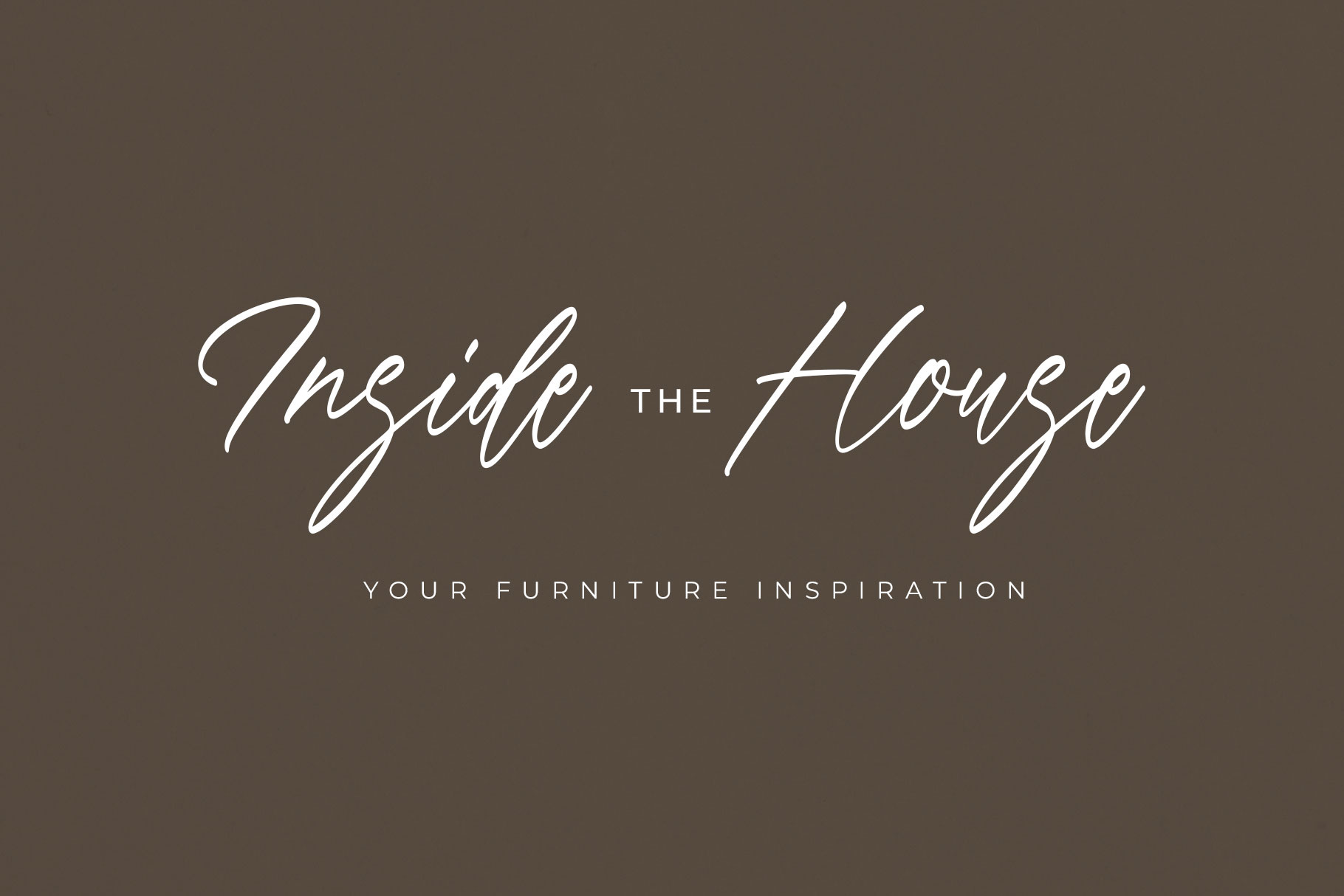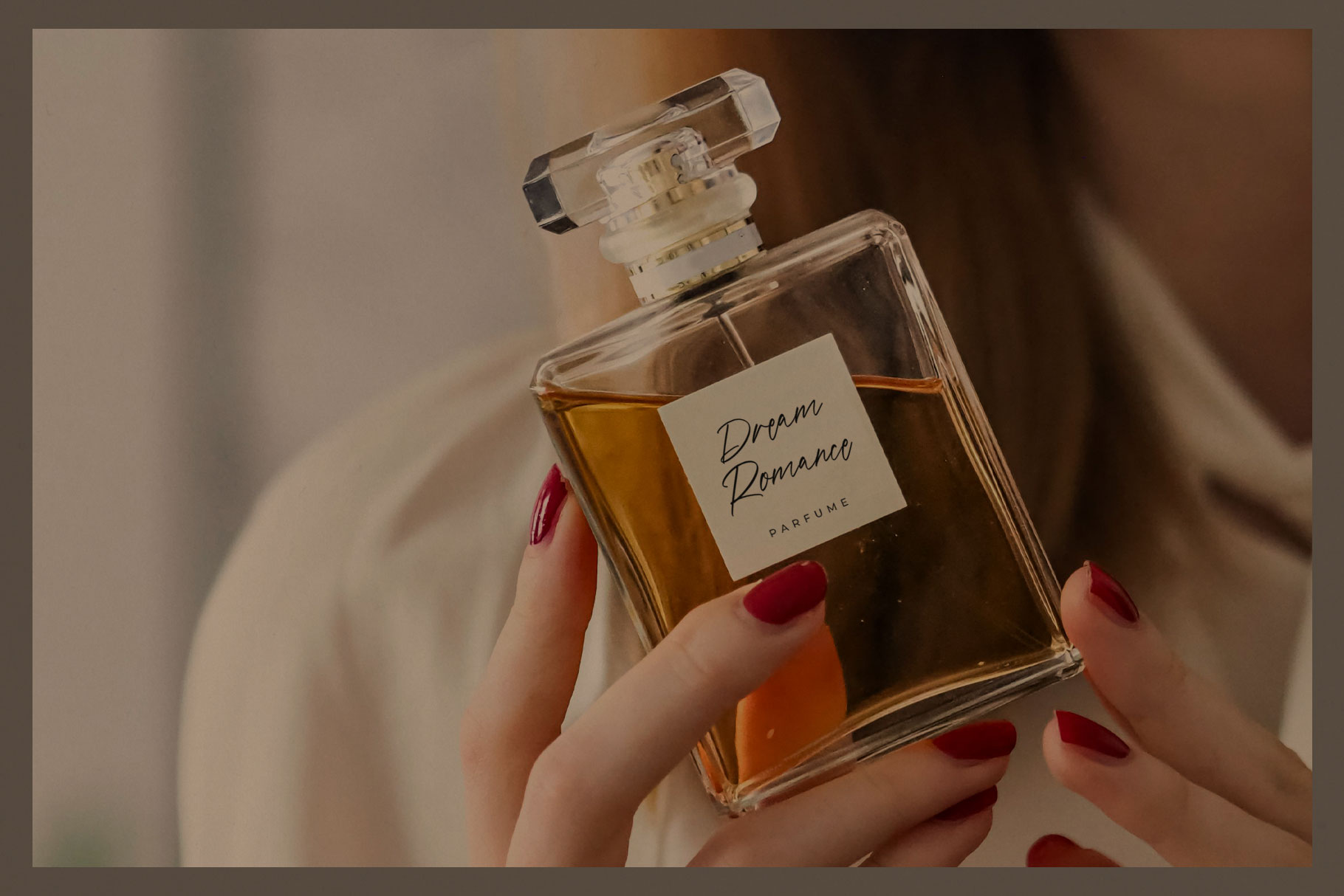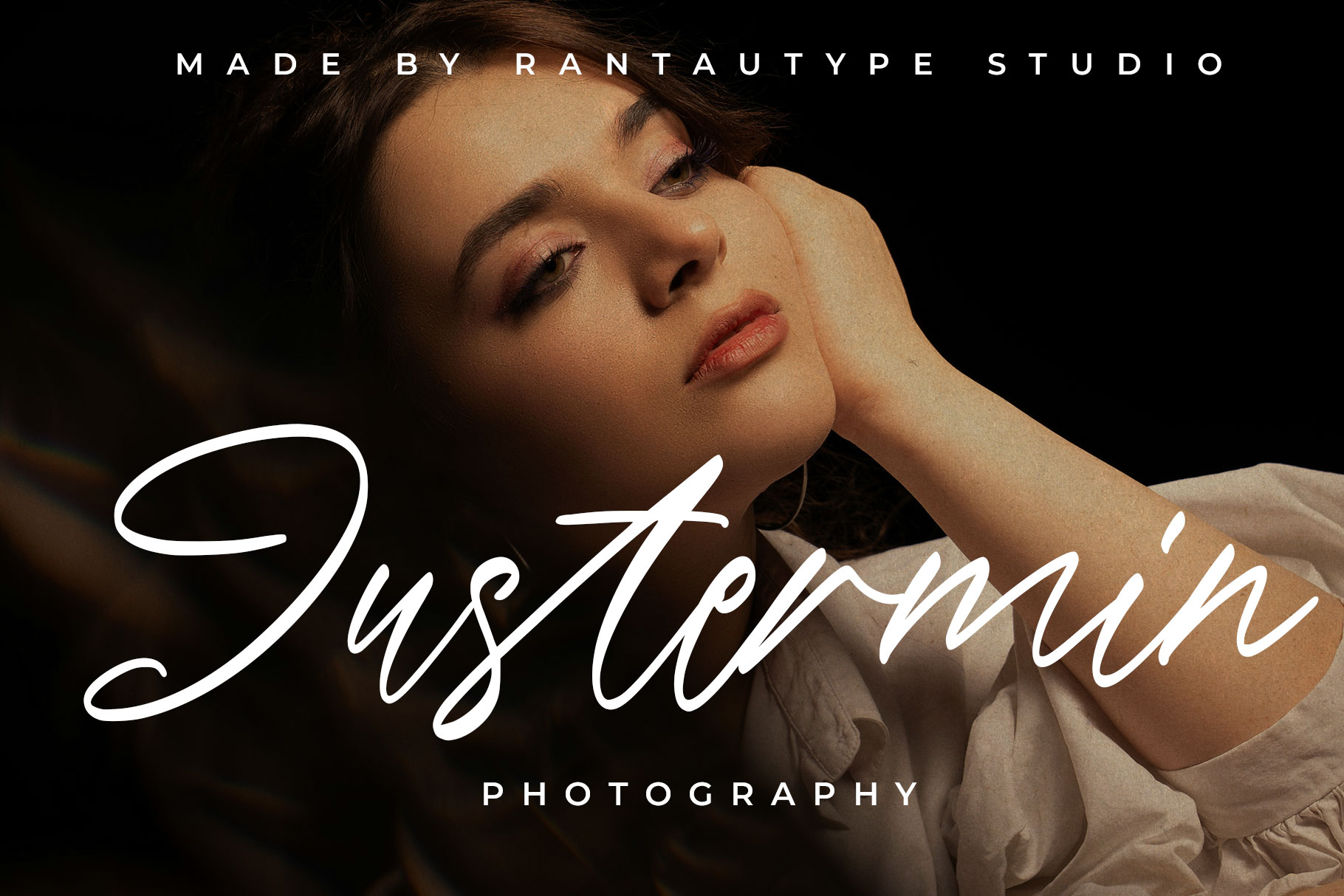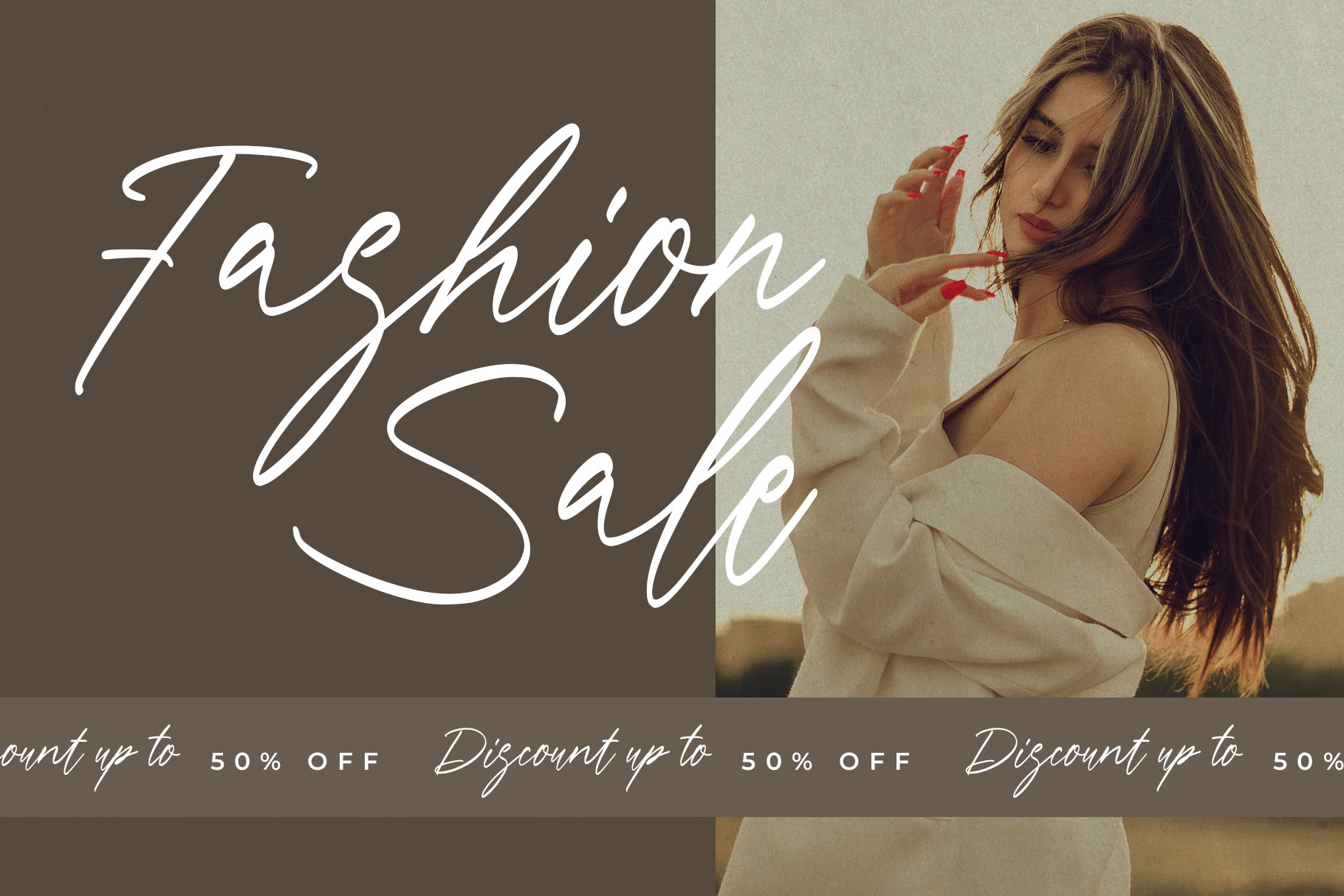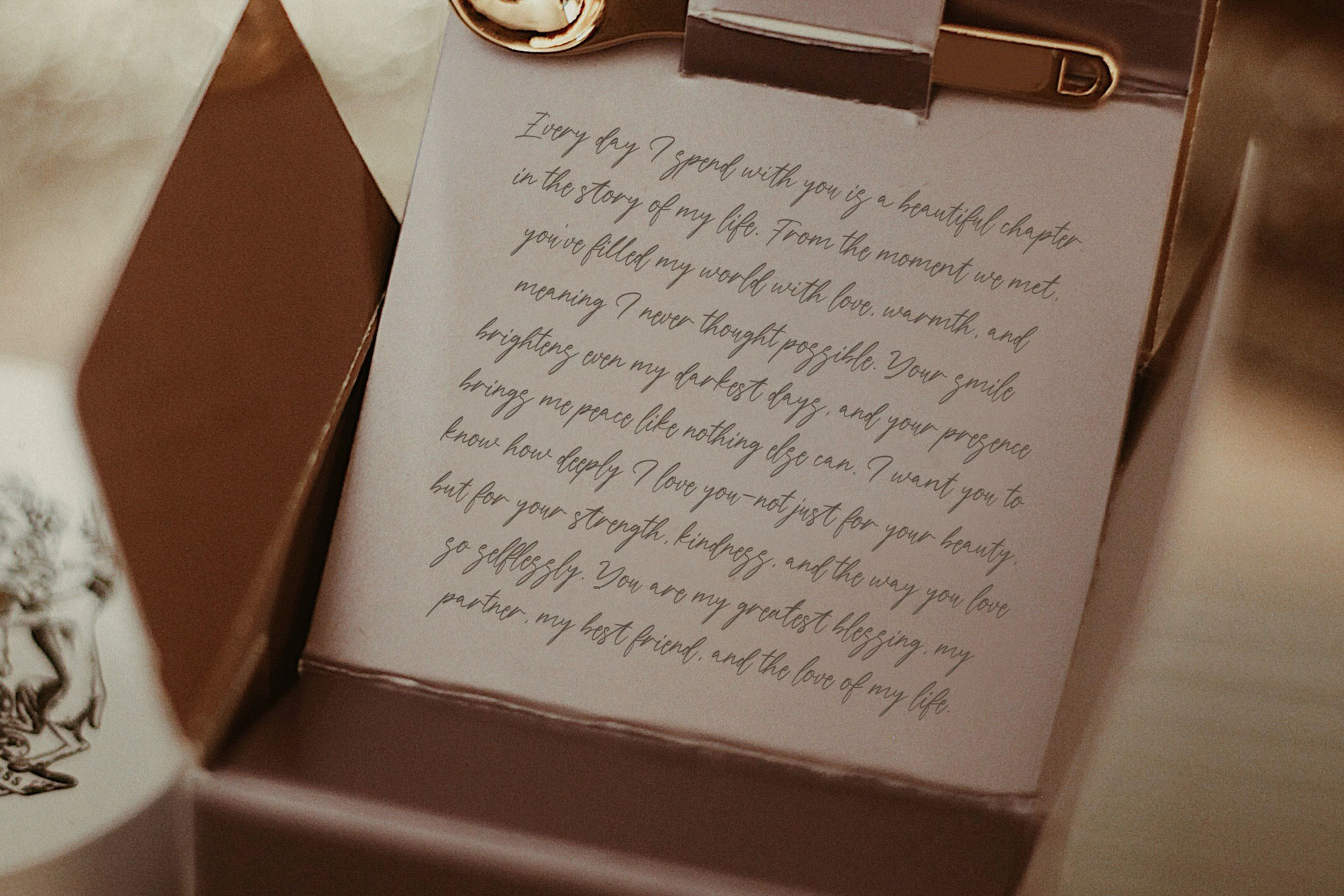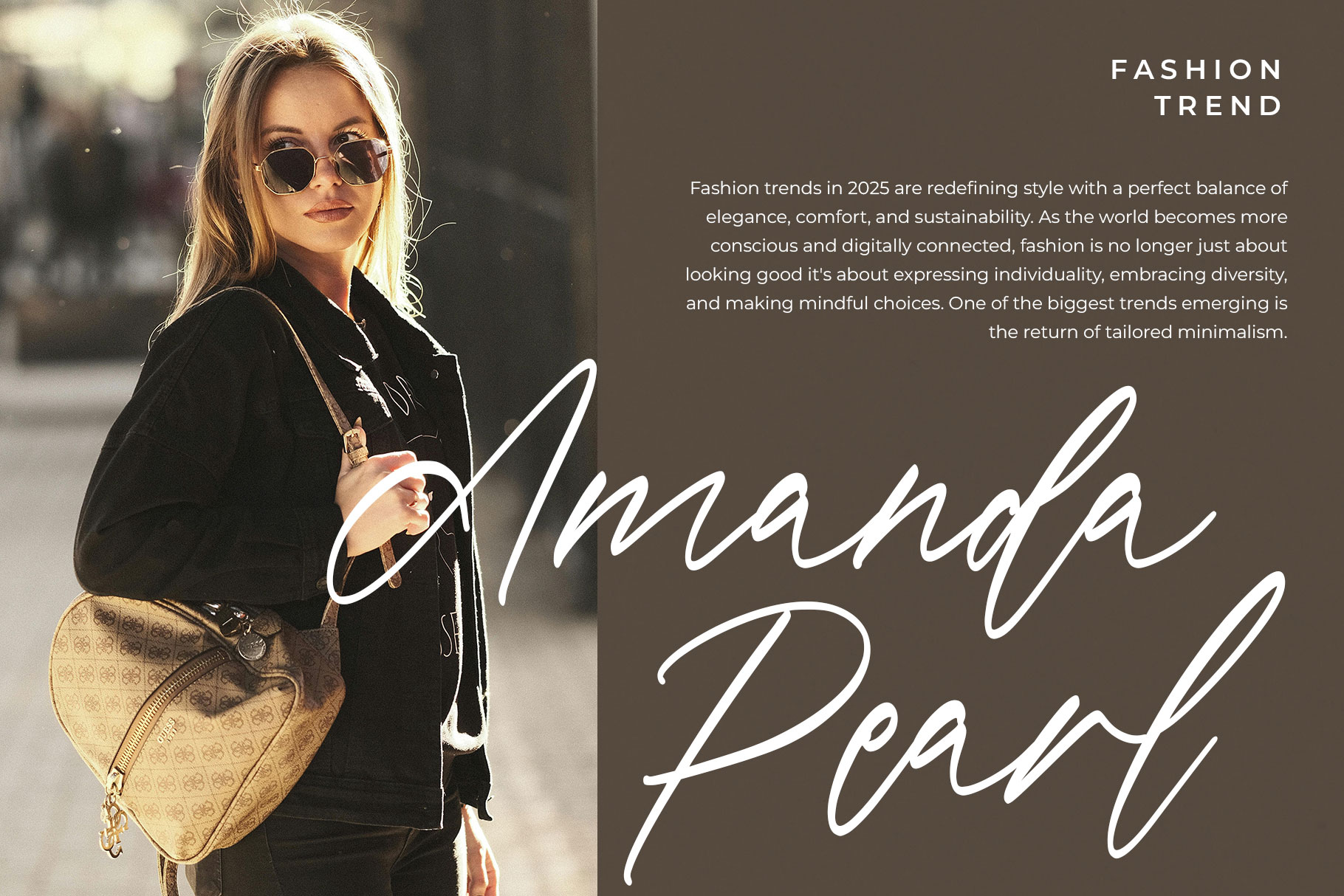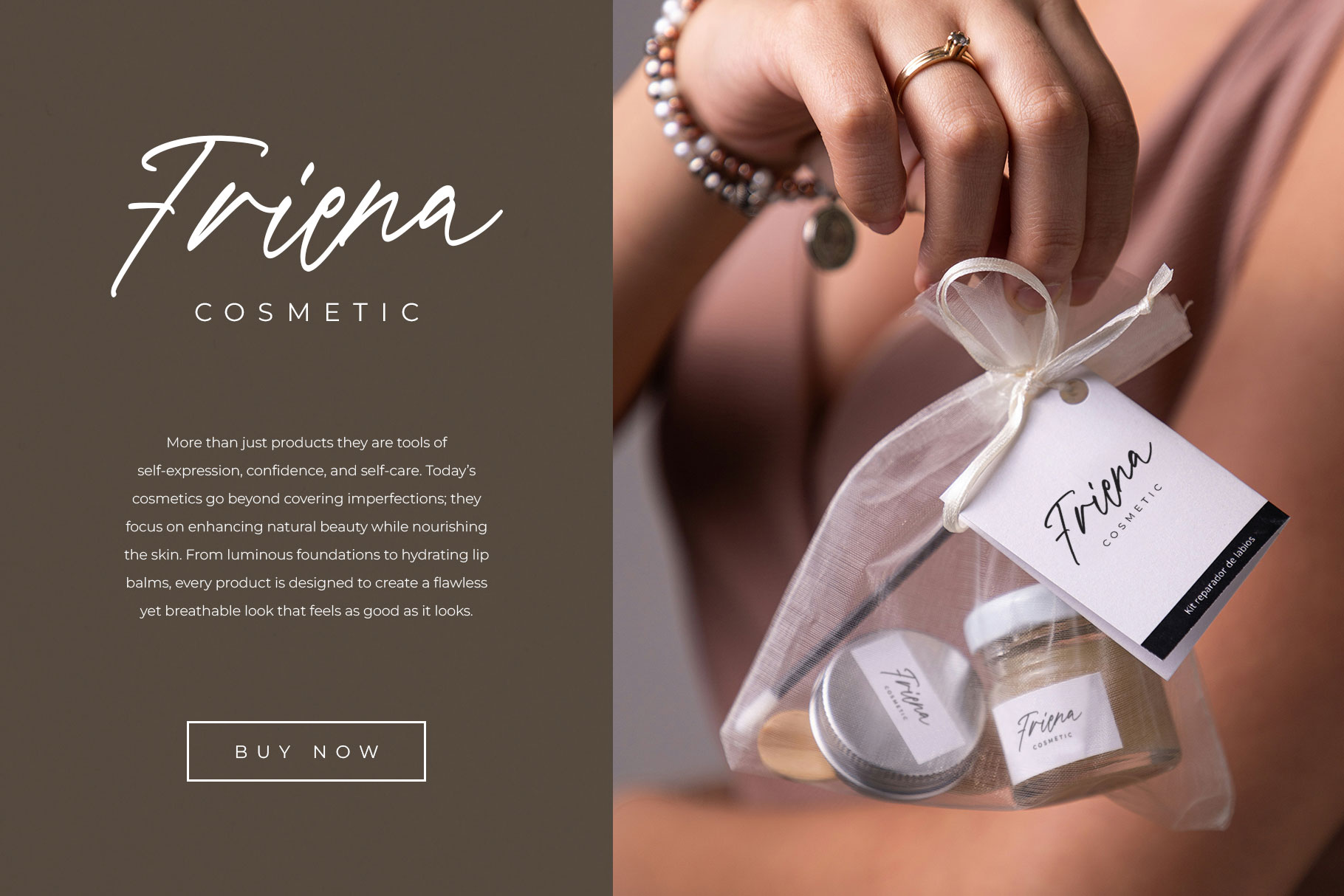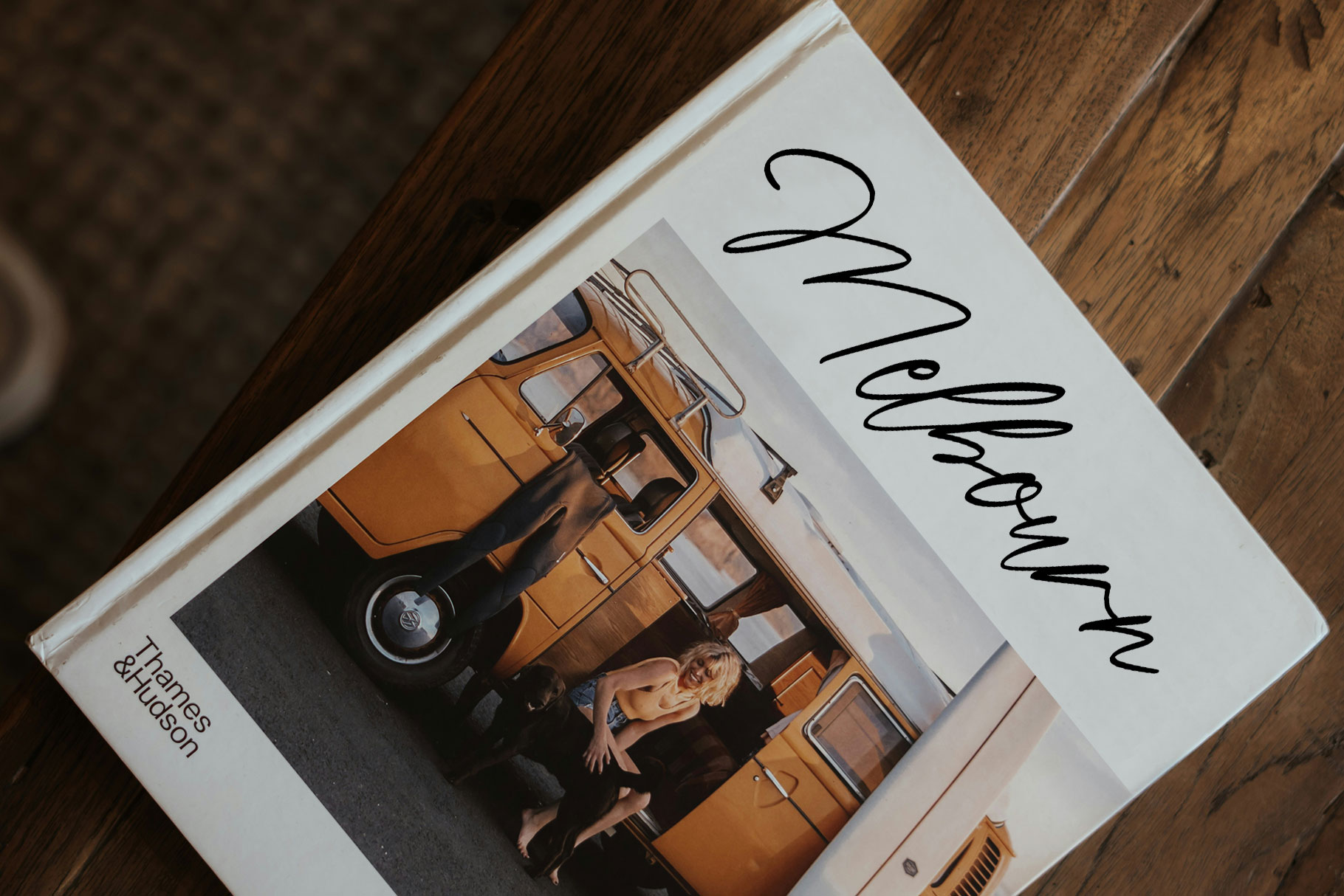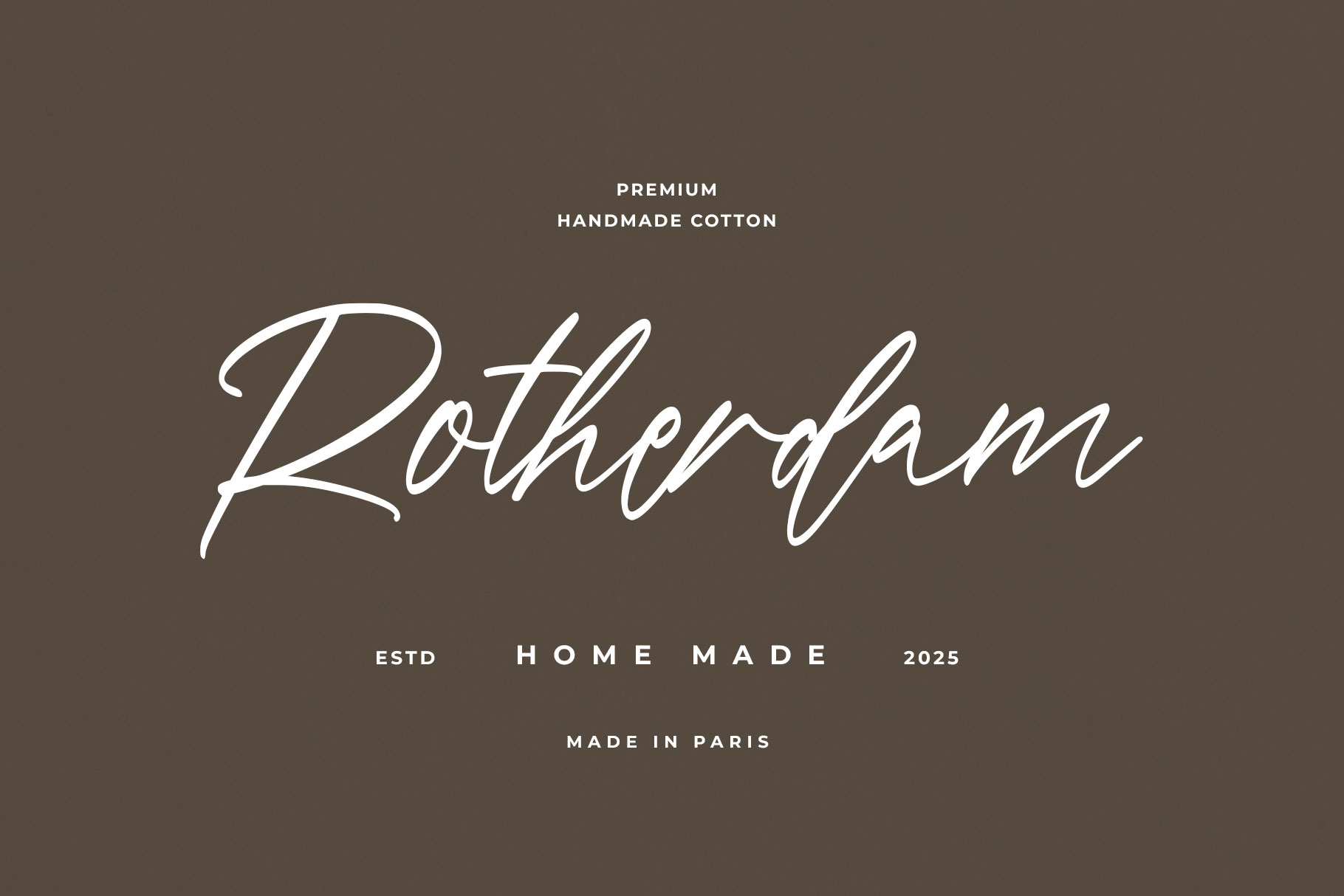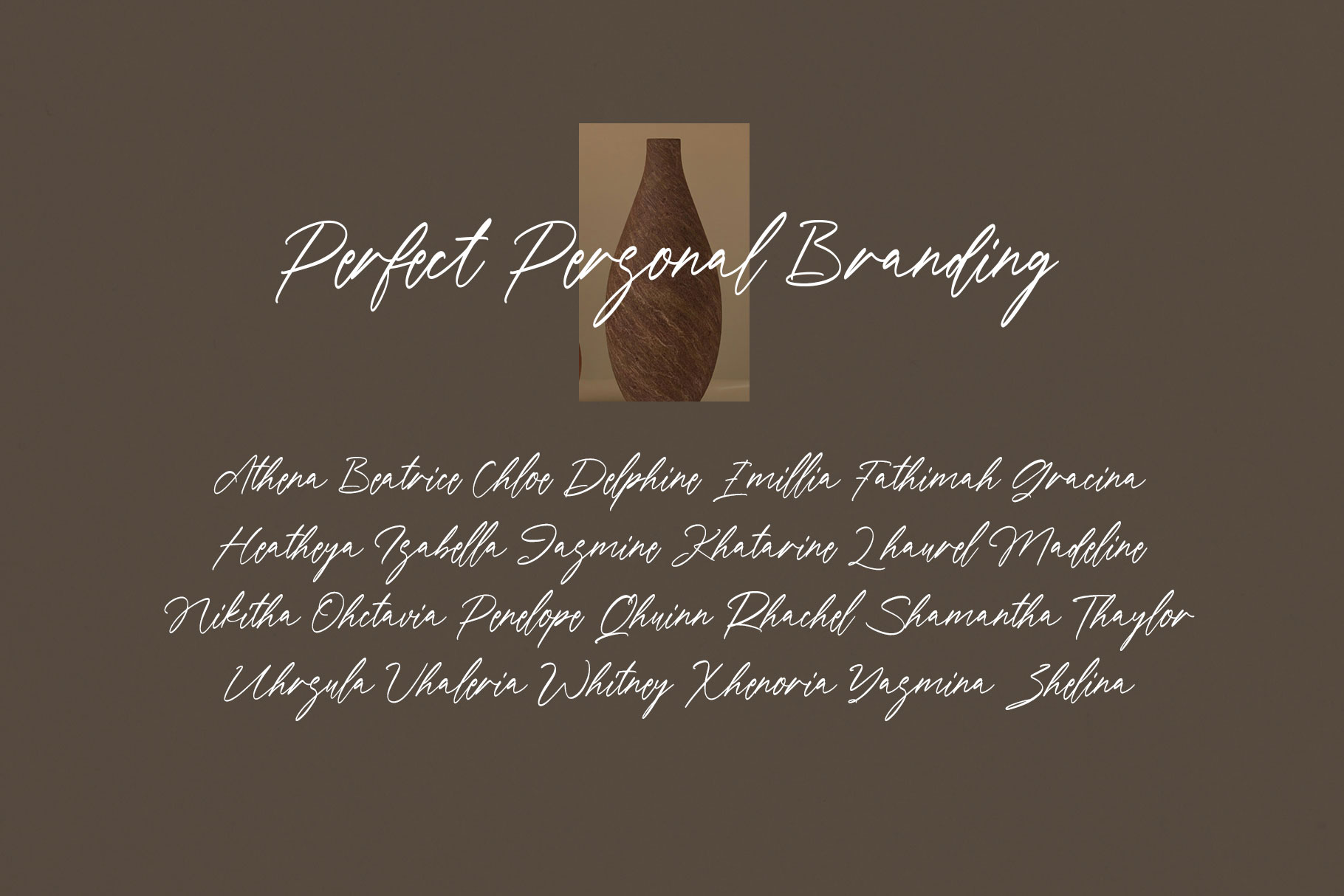
Neralety Handwritten Script Font
Neralety is handwritten font with fluid strokes and natural imperfections embrace modern and elegancy. Neralety is a perfectly choice for any creative endeavor, creating, modern, lifestyle design such as logotype, title, cover, branding, invitations, wedding designs, display and magazine, social media posts, advertisements, printed quotes, product packaging, corporate brand, product designs, labels, photography, watermarks, special events and any other project with handwritten feel.